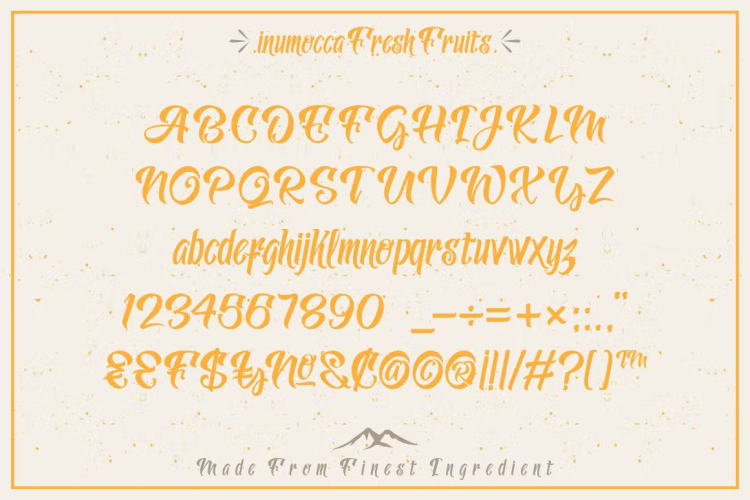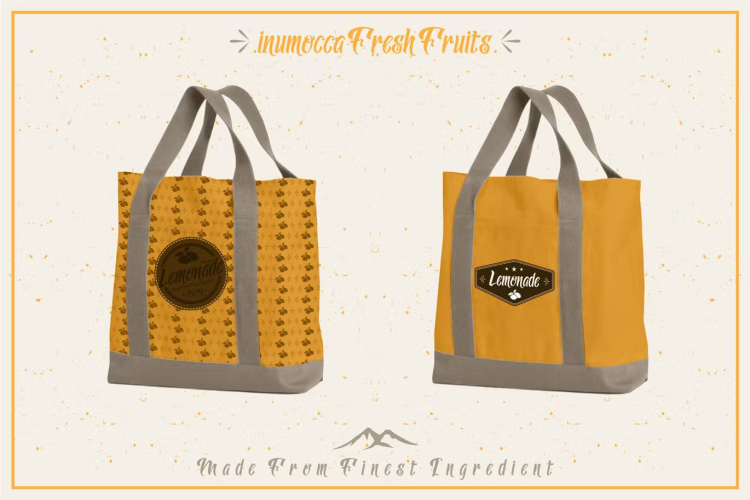
Lemonade Font
lemonade font inspired from vintage style of packaging its really great font for your band, company, label, clothing company, vintage or classic stuff, etc i give attrac…
lemonade font inspired from vintage style of packaging
its really great font for your band, company, label, clothing company, vintage or classic stuff, etc i give attractive offering for this promotional